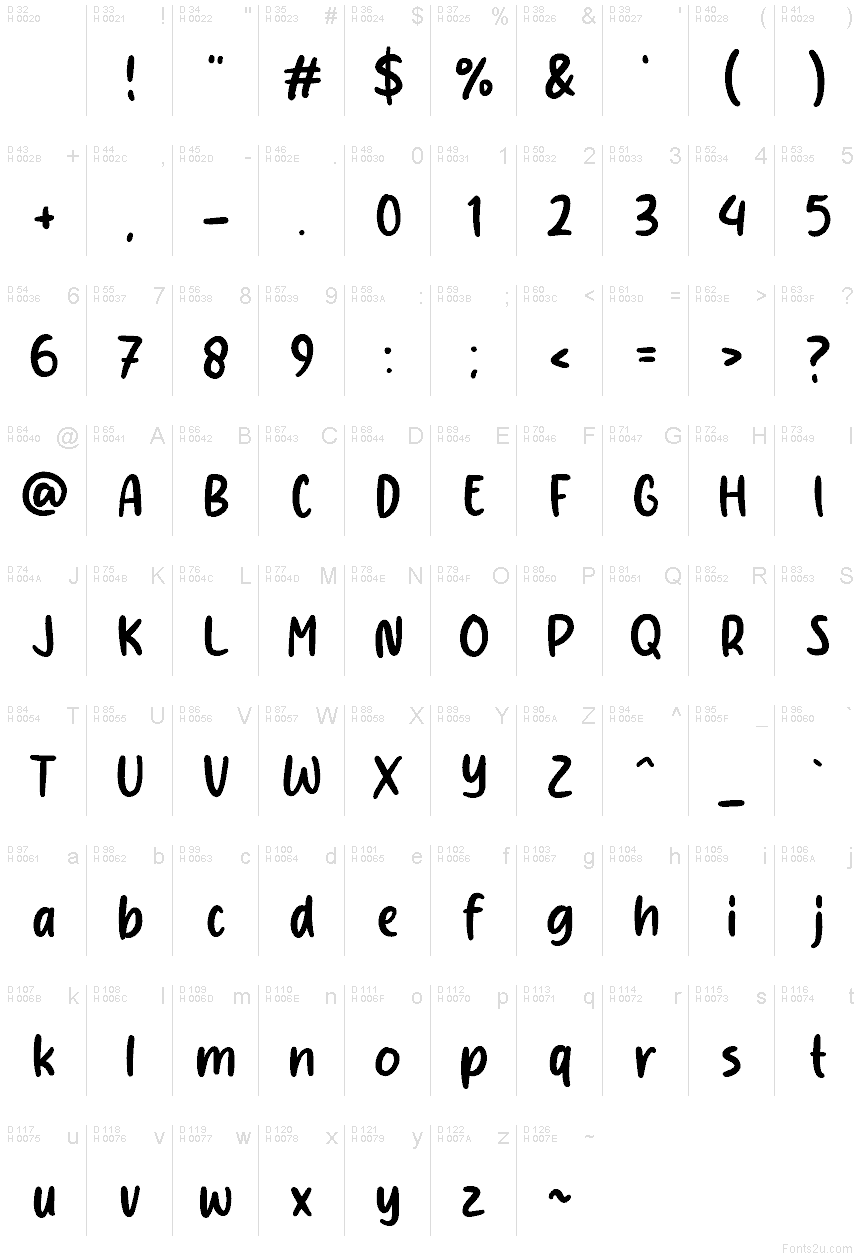
Miracle Fruit
Miracle Fruit font is a free handwritten font crafted by Origin Type. Each letter follows a smooth, casual, and organic flow in an energetic brush style that can give both friendliness and authority to your text. Use its modern appeal as the versatile artistic concept you want to share with others.
This typeface is perfect for packaging, cosmetics, apparel, branding designs such as logos and slogans, banners and posters, stationery projects (business cards), blogs where an entertaining effect will make reading easier (especially after hours), and websites designs. Social media posts that connect directly with users are also ideal alongside professional marketing campaigns.